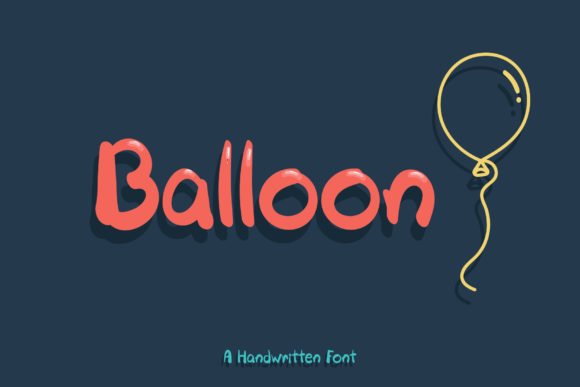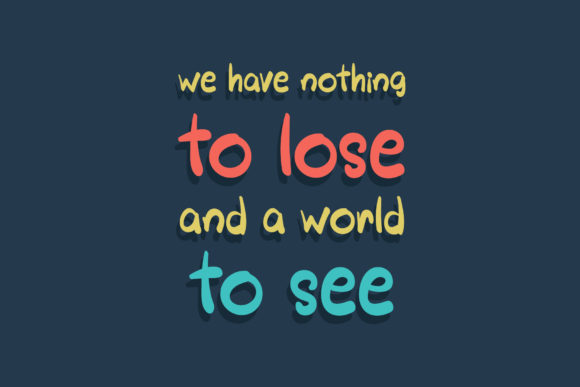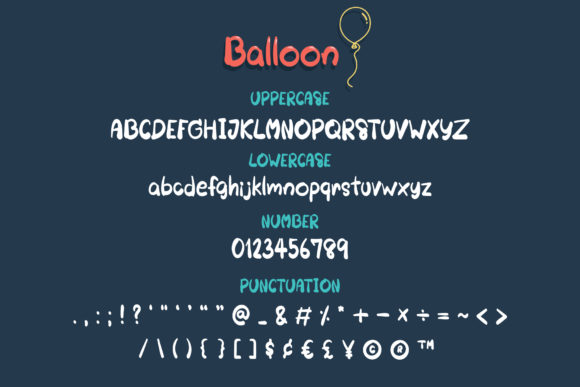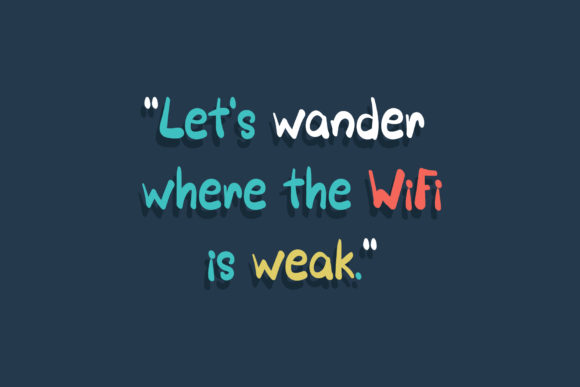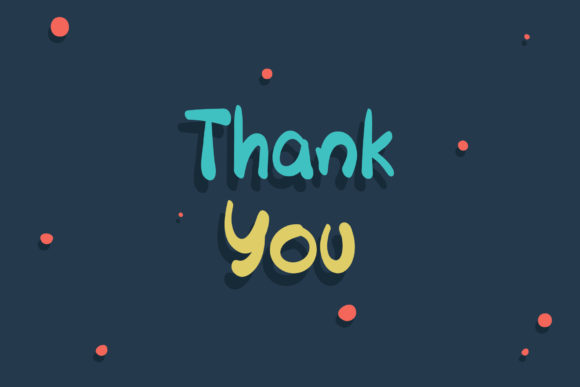
The Joy of Handwritten Typography
Have you ever sat down with a pencil and paper, letting your imagination run wild as you scribble out ideas and dreams? For many of us, this creative moment is where the magic happens – a time to let our quirkiness shine and bring our thoughts to life. As designers, we’re always on the lookout for ways to infuse our work with personality and authenticity.
Enter the Balloon Font, a playful and sweet handwritten font that’s sure to bring a smile to your face. With its whimsical charm, this beautiful font is perfect for kids’ projects, school assignments, and any other creative endeavor that needs a dash of fun. But its value extends far beyond just aesthetics – the Balloon Font is a valuable tool for designers looking to add a touch of human warmth to their designs.
Key Features of Balloon Font
- Unique Characteristics: Balloon Font features a unique, rounded balloon-like shape, with a soft and playful appearance that is perfect for creating a whimsical and child-friendly atmosphere.
Designer Review: Balloon Font
When I first laid eyes on the Balloon Font, I was immediately drawn to its playful, whimsical vibe ✨. The rounded shapes and soft edges evoke a sense of fun and approachability, making it perfect for kids’ content, party invitations, or any project that needs a carefree touch.
One of the standout features of the Balloon Font is its versatility ✨. It’s available in a range of weights, from light to bold, which makes it easy to use in a variety of contexts. Plus, the font is highly customizable, allowing you to adjust the size, color, and spacing to suit your design needs.
- ⚠️ The font may be too playful for more formal or professional projects, which could detract from the overall tone.
- ⚠️ Some users may find the font too cursive or script-like, which could make it difficult to read in certain contexts.
Overall, the Balloon Font is a solid choice for designers looking to add a touch of whimsy to their projects ✨. While it may not be the best fit for every design, it’s a great option for those who want to create a fun, approachable atmosphere.
Balloon Font is commonly used in:
- Children’s birthday parties and events
- Summer camps and youth programs